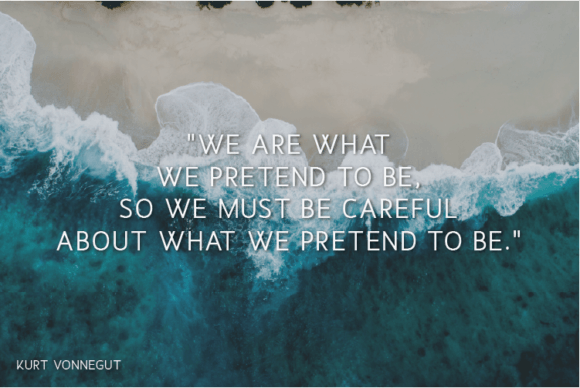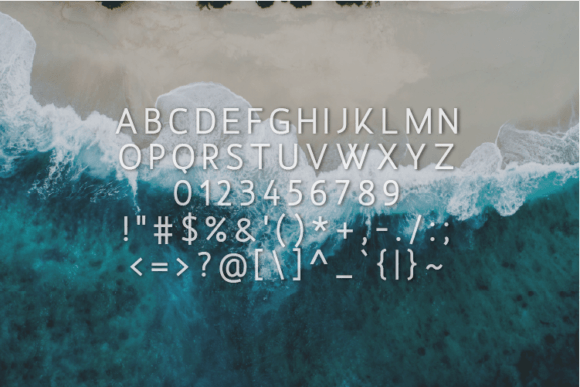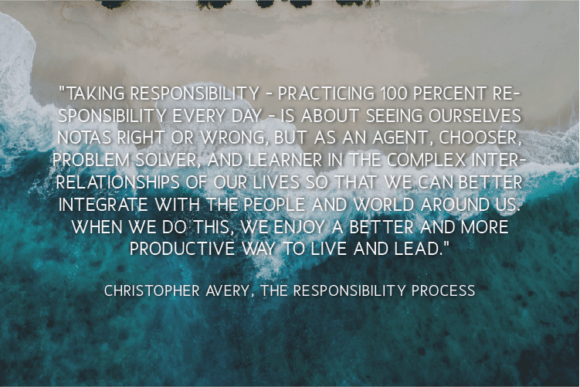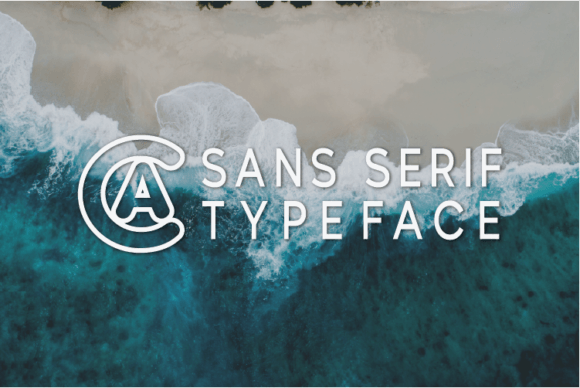
Introducing Atlantic Font: Elevate Your Designs with Modern Elegance
In the world of typography, a well-crafted font can make all the difference in elevating your design to the next level. Meet Atlantic Font, a modern, classy sans serif typeface that’s taking the design community by storm. With its clean lines, versatility, and extensive character set, Atlantic Font is the perfect addition to any designer’s toolkit.
What is Atlantic Font?
Atlantic Font is a sans serif typeface that boasts a sleek, contemporary aesthetic. This beautifully designed font features upper characters, numbers 0-9, and a range of punctuation and symbols, making it an extremely versatile choice for various design applications.
Key Features of Atlantic Font
• Modern Sans Serif Design: Atlantic Font’s clean, minimalist design makes it perfect for designs that require a touch of sophistication and elegance.
• Extensive Character Set: With upper characters, numbers 0-9, and a range of punctuation and symbols, Atlantic Font has everything you need to create stunning designs.
• Versatility: Use Atlantic Font for logos, weddings, invitations, quotes, advertisements, print, magazines, and more!
Why Choose Atlantic Font?
With so many fonts available, why choose Atlantic Font? Here are just a few reasons why designers and crafters are falling in love with this amazing typeface:
• Unique and Memorable: Atlantic Font’s modern design ensures that your designs will stand out from the crowd and leave a lasting impression.
• Easy to Read: The clean lines and simple shapes of Atlantic Font make it easy to read, even at small sizes.
• Highly Versatile: Whether you’re designing a logo, invitation, or magazine, Atlantic Font is the perfect choice.
Design Applications for Atlantic Font
Atlantic Font is an incredibly versatile typeface that can be used in a wide range of design applications, including:
• Logos: Create a lasting impression with a custom logo designed with Atlantic Font.
• Weddings and Invitations: Add a touch of elegance to your wedding invitations, save-the-dates, and other stationery.
• Quotes and Posters: Use Atlantic Font to create inspiring quotes, posters, and prints that will grab attention.
• Advertisements: Elevate your ads with a modern, sophisticated font that will help your brand stand out.
• Print and Magazines: Use Atlantic Font in your print designs, such as magazines, brochures, and flyers.
Tips for Using Atlantic Font
To get the most out of Atlantic Font, here are a few tips to keep in mind:
• Experiment with Font Sizes: Atlantic Font looks great at a range of font sizes, from small to large.
• Play with Color: Try pairing Atlantic Font with different colors to create a unique and eye-catching design.
• Mix and Match: Combine Atlantic Font with other fonts to create a visually appealing design.